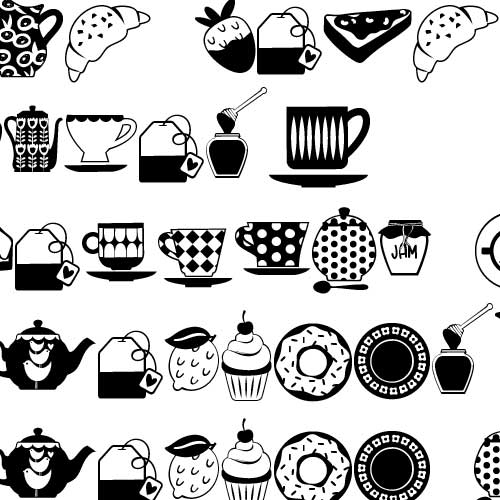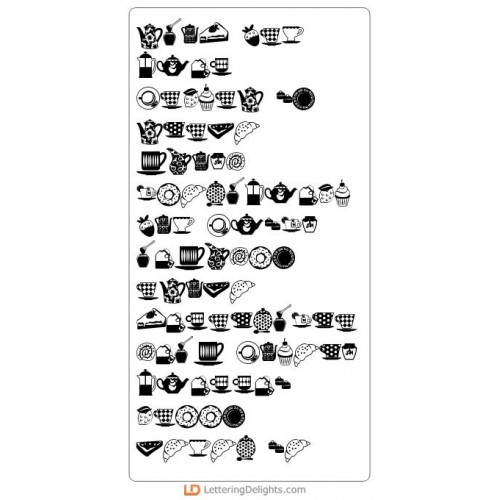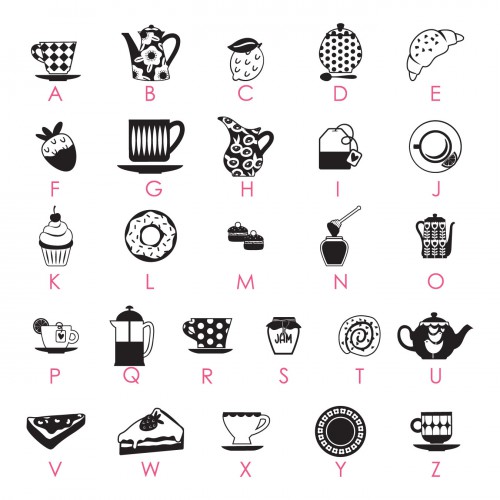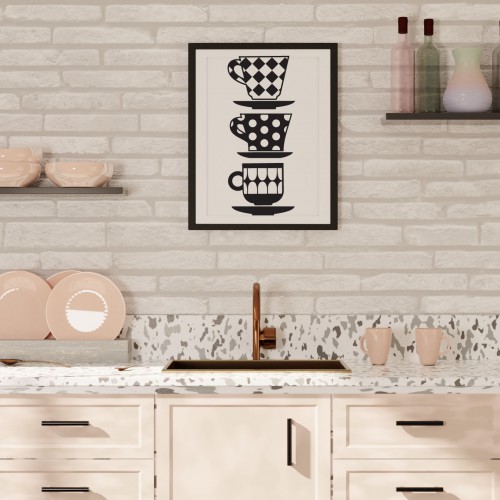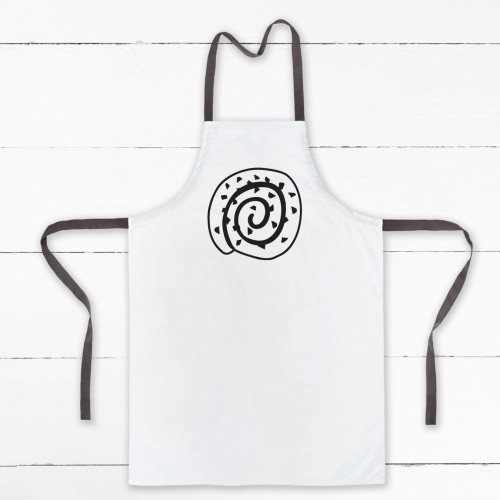
DB Tea-riffic - DB
This "Tea-riffic" doodlebat font features 26 items for the perfect tea party! Use this fun doodlebat to create adodrable cards, gifts, decor, planner stickers, scrap book pages and its perfect for Mother's Day!